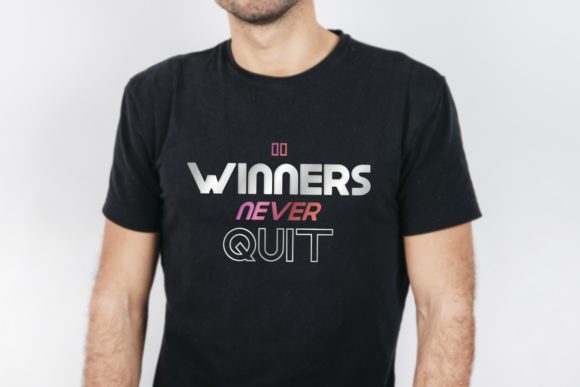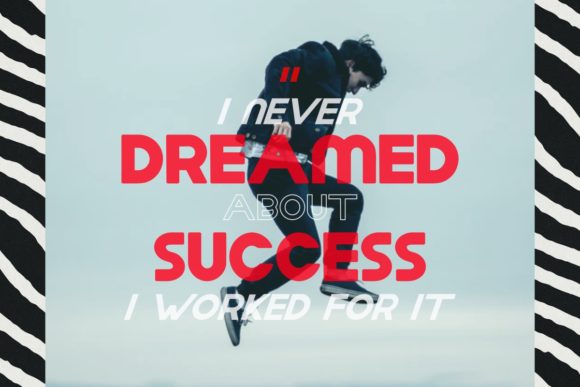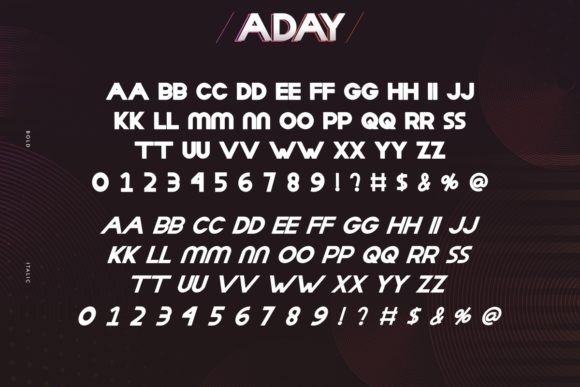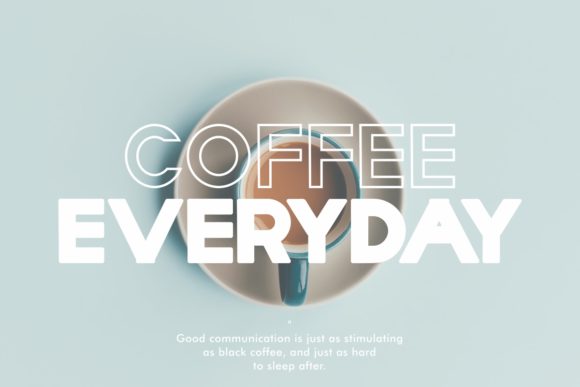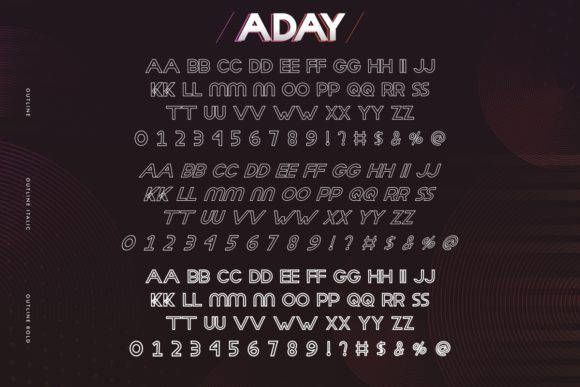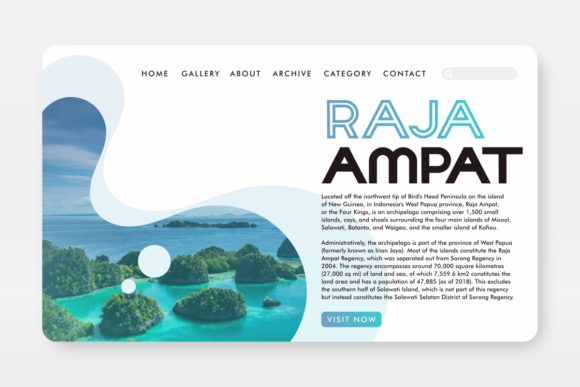
The Aday Font: A Modern Sans Serif for Creative Projects
Have you ever been working on a design project, and suddenly, you’re stuck on finding the perfect font? I recall a recent experience where I was tasked with creating a bold and modern signage design for a client’s new restaurant. The font had to be clean, stylish, and attention-grabbing. After scouring through numerous font libraries, I stumbled upon the Aday Font, and it instantly became my go-to choice.
What Makes Aday Font Special?
Aday Font is a Sans Serif display font that boasts a clean, modern, and stylish aesthetic. It’s perfect for a wide range of projects, including headlines, promotions, events, branding, advertising, magazines, signage, invitations, stationery, social media posts, labels, and more. The font comes in six different styles, ensuring you have plenty of options to choose from to suit your design needs.
- ✨ Clean and modern design that’s perfect for creating a lasting impression
- ✅ Six different styles to choose from, offering versatility for various projects
- ✅ Works well for both digital and print applications
- 🤔 Some users might find the font a bit too bold for certain applications, such as body text
- ⚠️ Limited availability of special characters and glyphs, which might be a drawback for some users
The Designer Inspiration Behind Aday Font
Aday Font was designed with the goal of creating a clean, modern, and versatile Sans Serif font that could be used for a wide range of applications. The designer aimed to create a font that would be both stylish and legible, making it perfect for creative projects that require a strong visual impact.
Q: Is Aday Font suitable for body text?
A: While Aday Font is highly legible, it’s primarily designed for display purposes. For body text, you might want to consider a font with a more traditional or serif design.
Q: Does Aday Font support OpenType features?
A: Yes, Aday Font supports OpenType features, including glyphs and stylistic alternates. You can access these features in compatible design software, such as Adobe Creative Cloud.